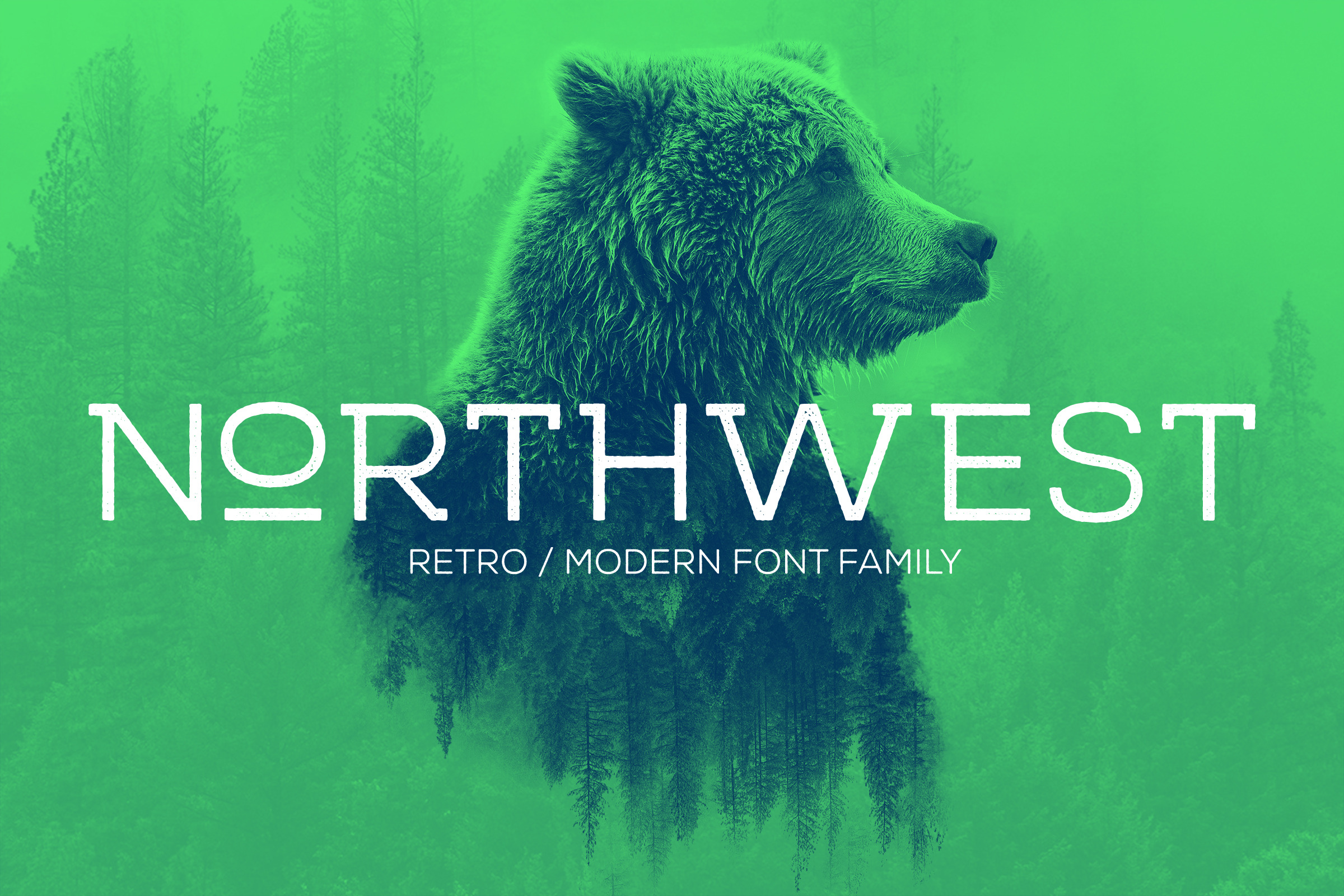
NORTHWEST - RETRO/MODERN FONT-FAMILY
NORTHWEST is a 6 font family. It consists of 3 weights of its crisp slab-serif with softly rounded edges, and 3 textured companions of the same. This font arose of a personal desire for a clean modern font with a retro style.